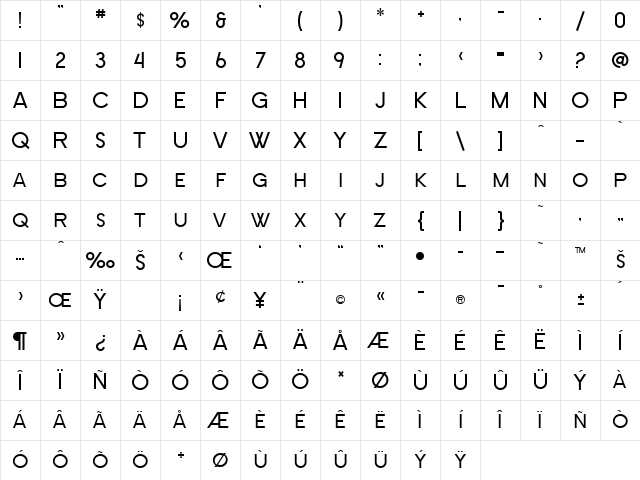
SF New Republic SC Regular
Design Context for SF New Republic SC
SF New Republic SC is a composed and adaptable typeface that performs quietly and consistently across a wide range of design contexts.